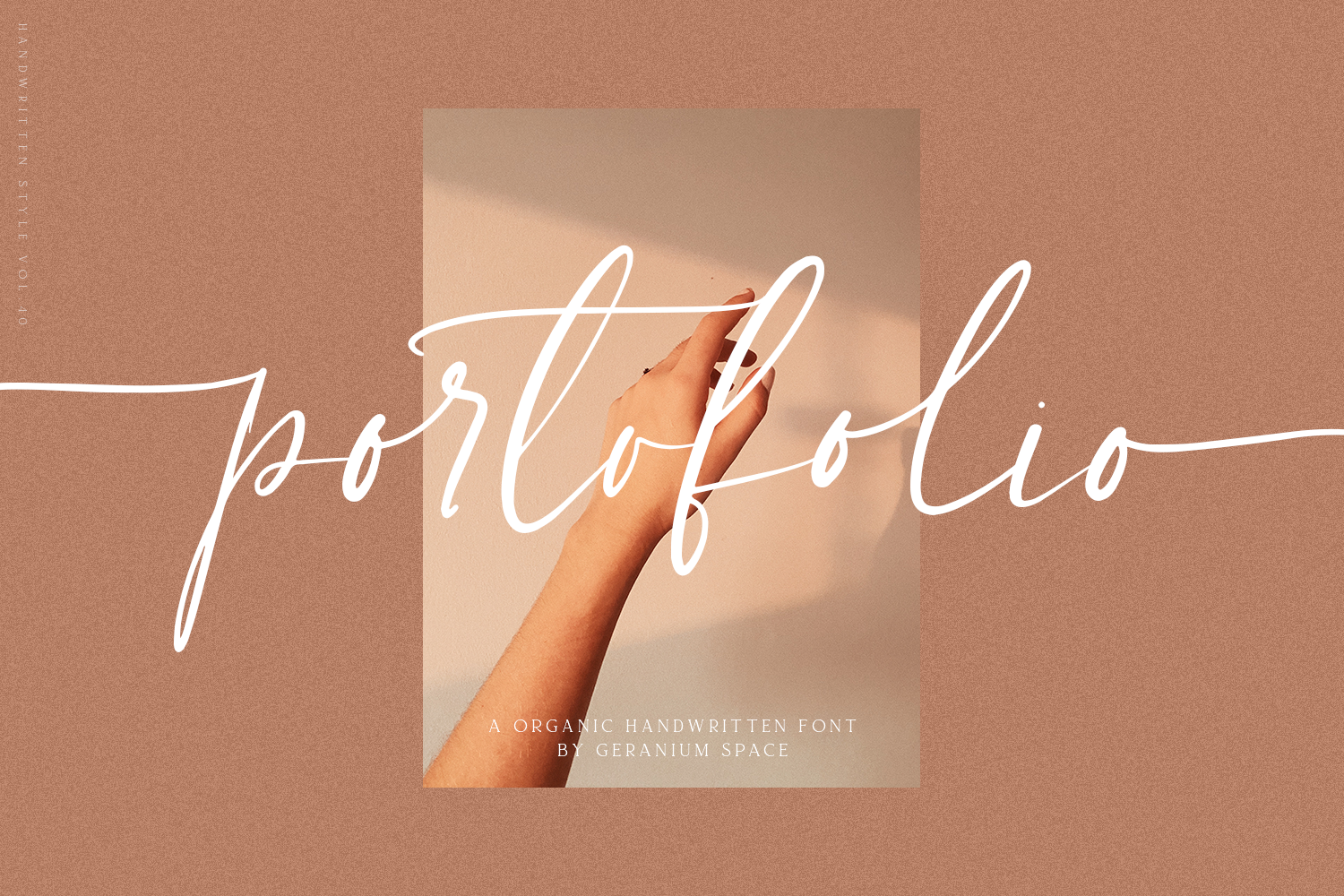
Hi everyone, I would like to introduce a new Portofolio - A Handwritten Font, which has a modern organic style. This is perfect for branding purposes, invitations, design logos, wedding cards, you can even use it for beauty items
in Portofolio, I added lowercase alternatives and some ligatures. I've also included the start and end of the swash, to give you the impression that you are writing on paper / tab.